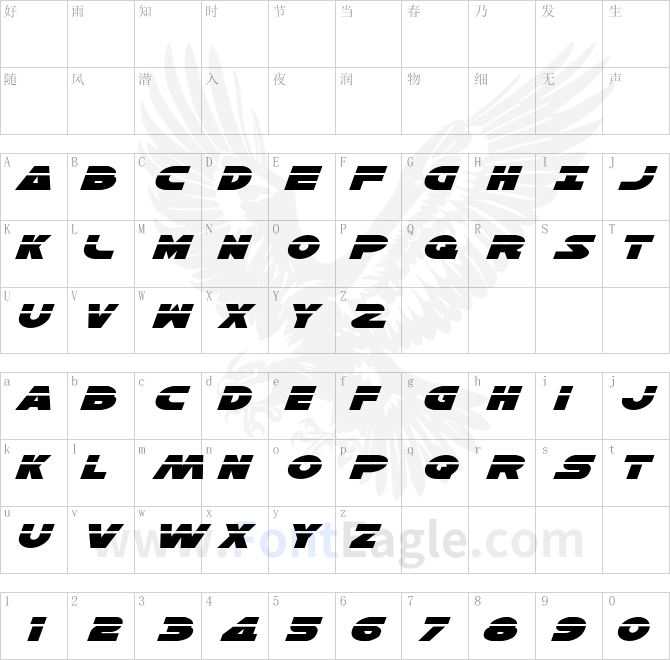
- Font name:Han Solo Exp Laser Italic
- Font Subfamily:Exp Laser Italic
- Font Subfamily ID:Han Solo Exp Laser Italic
- Font Full Name:Han Solo Exp Laser Italic
- Postscript:HanSoloExpLaserItalic